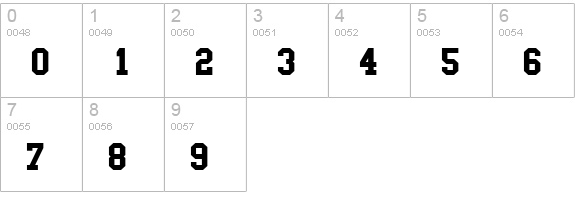
College Bold is a strong, high-contrast variant in the College typeface family \xE2\x80\x94 well suited to headlines, attention-grabbing titles, and strong calls-to-action.
Introducing College Bold, a meticulously designed font that exudes a sense of confidence and strength. With its bold and impactful letterforms, this versatile typeface is perfect for capturing attention and making a statement in various design projects. College Bold is not only visually striking, but it also offers a seamless balance between traditional and contemporary styles. Its distinctive characters and clean lines make it suitable for a wide range of applications, including logos, headlines, posters, and more. Whether you're looking to create a vintage-inspired design or a modern, edgy composition, this font has got you covered. What sets College Bold apart is not just its exceptional aesthetics, but also its accessibility. We believe that creativity should be free and accessible to all, which is why we are thrilled to offer College Bold as a free download exclusively at FontsMarket.com. This means that designers, students, and enthusiasts alike can enjoy the benefits of this remarkable font without the burden of a price tag. So, whether you're a seasoned professional or just starting your design journey, College Bold is here to ignite your creativity and bring your projects to life. Download it now at FontsMarket.com and embark on a typographic adventure that is both visually compelling and financially rewarding. Embrace the power of College Bold and let your designs make a lasting impression.